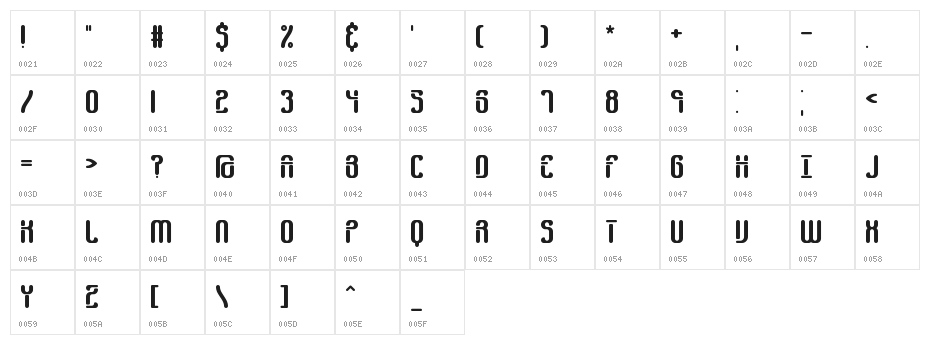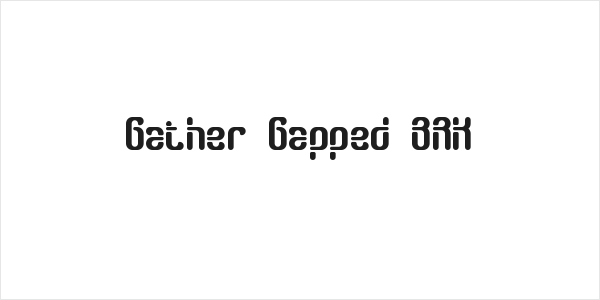
Gather Gapped BRK Font
Gather Gapped BRK Description
This font features a unique, modern design with a distinct gap in each character, creating a futuristic and digital aesthetic. The characters are bold and rounded, with a consistent stroke width that gives a uniform appearance. The uppercase and lowercase letters maintain a similar style, enhancing readability while preserving the font's distinctive look. Numbers and special characters are designed to match the overall theme, making this font versatile for various applications. Its geometric structure and innovative design make it stand out, ideal for creative and tech-oriented projects.
Proposed ProjectsIdeal for tech branding, digital media, futuristic posters, and innovative product packaging.